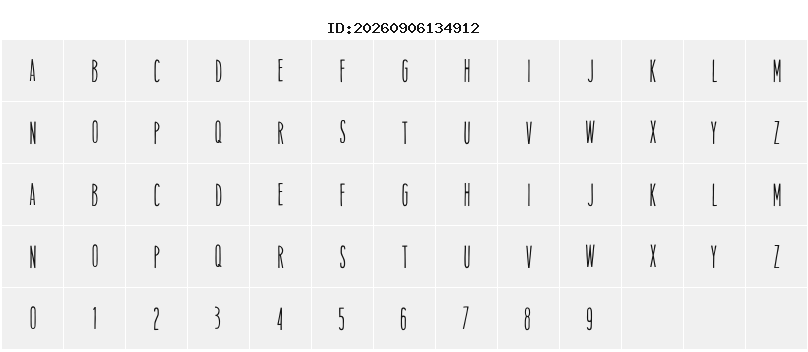
Tamales Preview
• Font Name: Tamales
• Designer: HENRIavecunK
• Manufacturer: HENRIavecunK
• Description: Tamales Regular is a font designed by HENRIavecunK.
About Tamales.ttf
Tamales.ttf is a modern, elegant sans-serif font designed for ultimate readability and visual harmony. Perfect for branding, headlines, web design, and print materials.